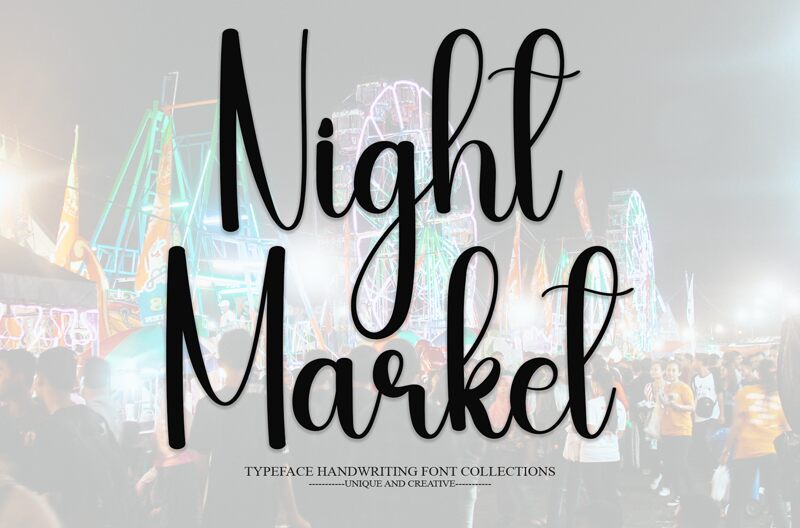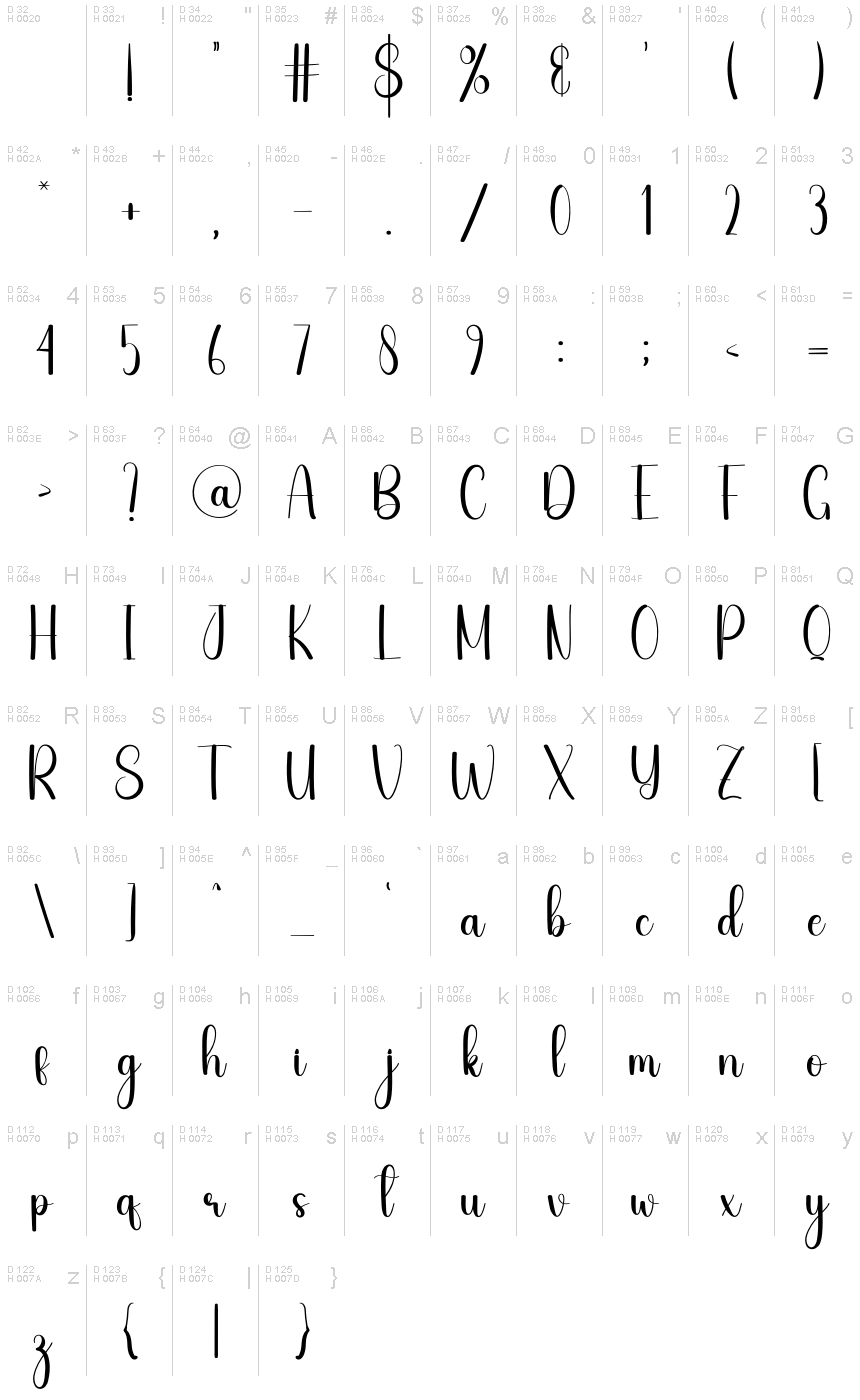
Night Market
Night Market, crafted by the talented Andi Moz, exudes charm with its handwritten style. This font effortlessly melds elegance with a playful touch, especially evident in its gracefully flowing letters and exaggerated loops. Night Market stands out due to its delicate, airy strokes paired against robust lines, creating a dynamic yet harmonious visual cadence.
This font's whimsical flair makes it an excellent choice for various design contexts. Whether you're designing wedding invitations, branding a boutique shop, or crafting engaging social media content, Night Market ensures your text radiates warmth and individuality. Its distinctive personality captures attention effortlessly while maintaining readability and elegance. Perfect for designers seeking to inject sophistication without sacrificing approachability in their projects.